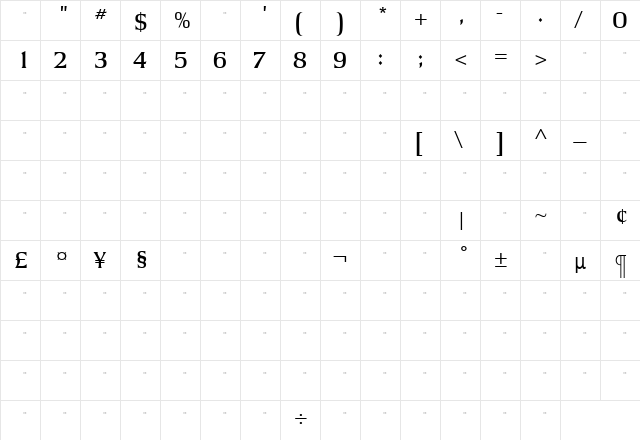
ArgusMediumTab Regular
| Foundry | Copr.Red Rooster Typefounders, |
Design Context for ArgusMediumTab Typeface
ArgusMediumTab takes a measured approach to typography — its balanced proportions and neutral character make it a reliable workhorse for both digital and print work.